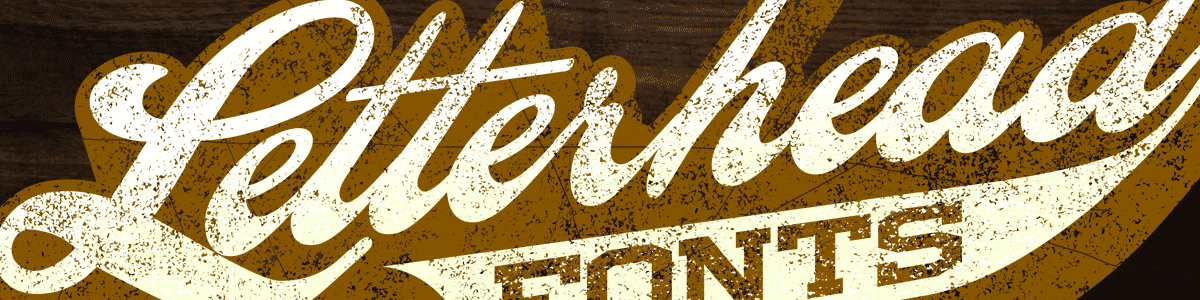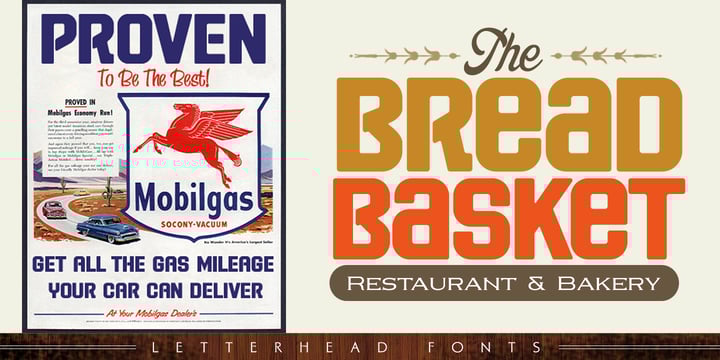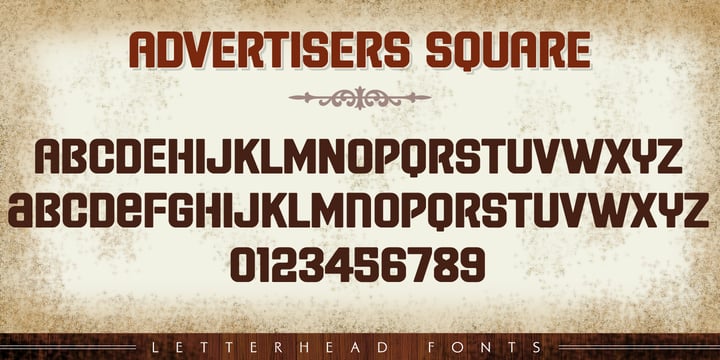
Letterhead Fonts
“A font is so much more than just beautiful letters,” Letterhead’s founder and president Chuck Davis says. “Those letters must work together harmoniously to add something to your design.”
“Letterhead Fonts began quite by accident,” Chuck says. Having worked as a sign painter for many years, he switched gears in 1998 and began working as a graphic designer for Boeing. “One day I noticed one of the employees cleaning out a storage room and throwing old software into a large trash bin. I couldn't help but notice one of the floppy disks said "FontMonger". Since I'd been interested in creating a font for some time, I rescued the disk from the trash and put it into my Mac in the office. The program was crude, but perfect for a novice user because of it's simplicity. I imported letters that I had drawn by hand and soon had created my first font: CD Esoteric. I had already started a website to offer ready-to-cut custom designs to the sign industry, but that wasn't going anywhere. So I proceeded to create 4 fonts and sold them on a subdomain of the site called "Letterhead Fonts" – the term "Letterhead" referring to a skilled sign craftsmen.”
Although they are headquartered in Reno, NV, the foundry collaborates with incredible designers from all over the world. “Over the years, I've had the good fortune to work with many talented artists and Letterhead Fonts wouldn't be what it is today without their help.” Sign artist John Studden was one of the first designers to join Chuck’s foundry: he’s been on board ever since and has had a hand in creating most of the fonts on the website. “Our own Dave Correll is also a very talented designer. I think he's one of the best font designers in the world today. He gives very special attention to balancing the letters with each other and spacing them carefully.” Letterhead Fonts has also collaborated with designers like Arthur Vanson and Charles Borges de Oliveira. “Each of our contributors bring something unique to Letterhead Fonts. But we all share a common goal: to make beautiful fonts that serve a purpose.”
Chuck has outlined 3 basic criteria for determining if a font will be sold through Letterhead Fonts: (1) It must be useful and serve a purpose. (2) It must be of good quality. No bad points or twisted paths. Curves must be smooth and drawn correctly. Letters must be balanced and work well together. (3) It must be unique. It must be something that hasn't been done before, or at least not as well.